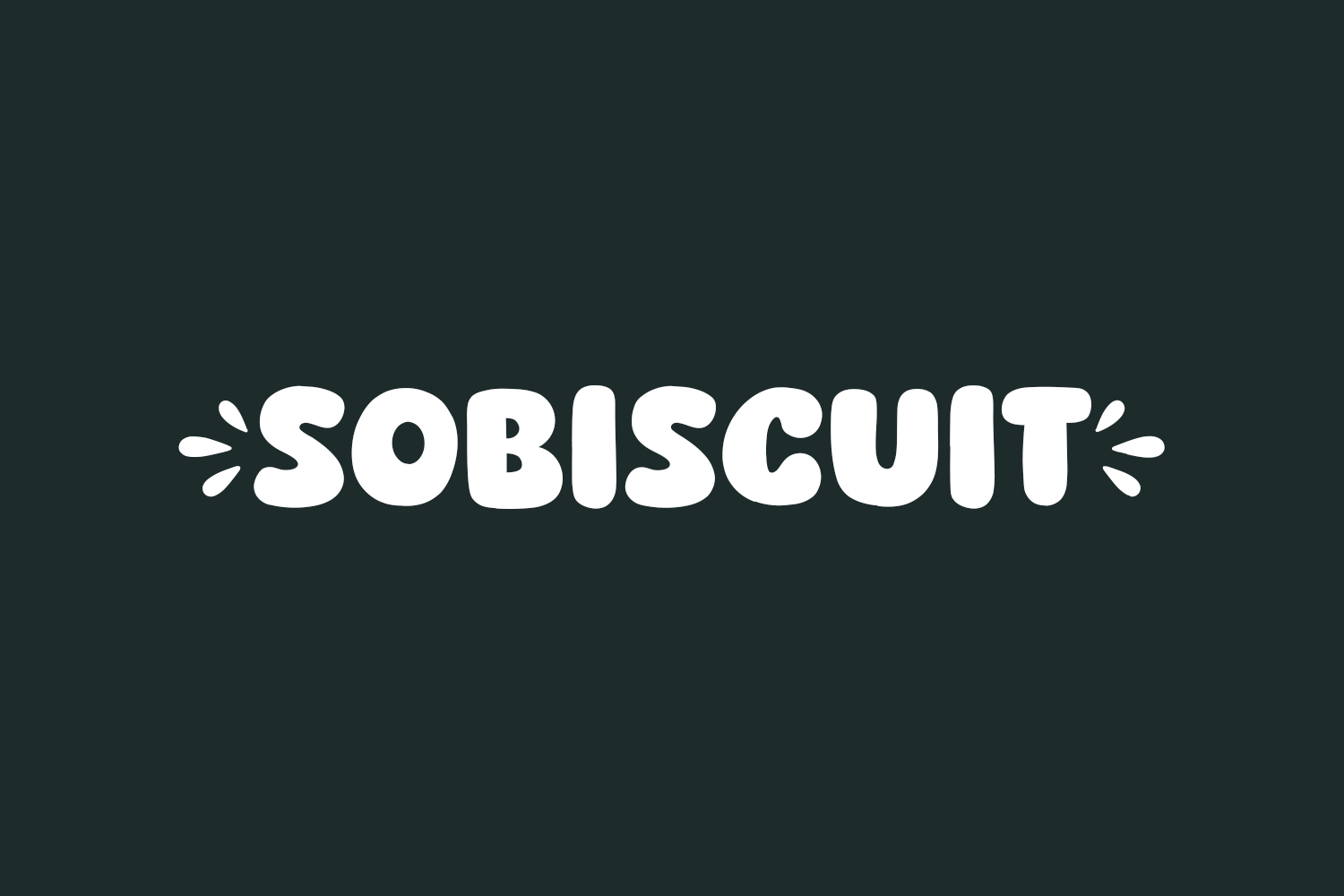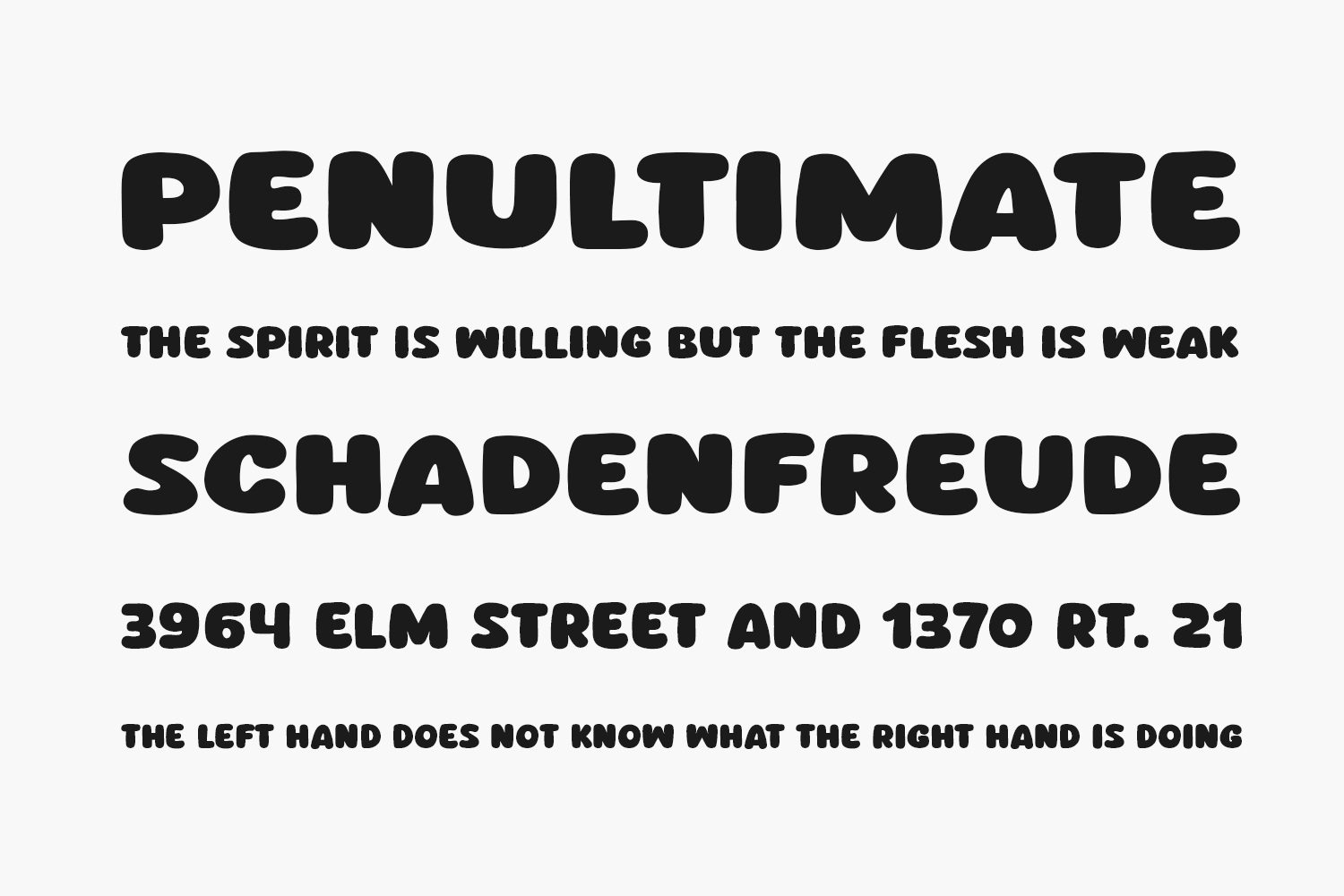
Introducing Sobiscuit Free Font, a chic and contemporary display font tailored for a myriad of creative projects. Whether it’s posters, logos, magazines, book covers, banners, or more, this fancy font is the perfect choice. Elevate your designs with Sobiscuit’s modern appeal, effortlessly matching a diverse range of projects. Acquire this remarkable font today and witness how it effortlessly enhances your creative ideas, making them truly stand out. Sobiscuit Free Font was designed by Khurasan and is free for personal or commercial use.